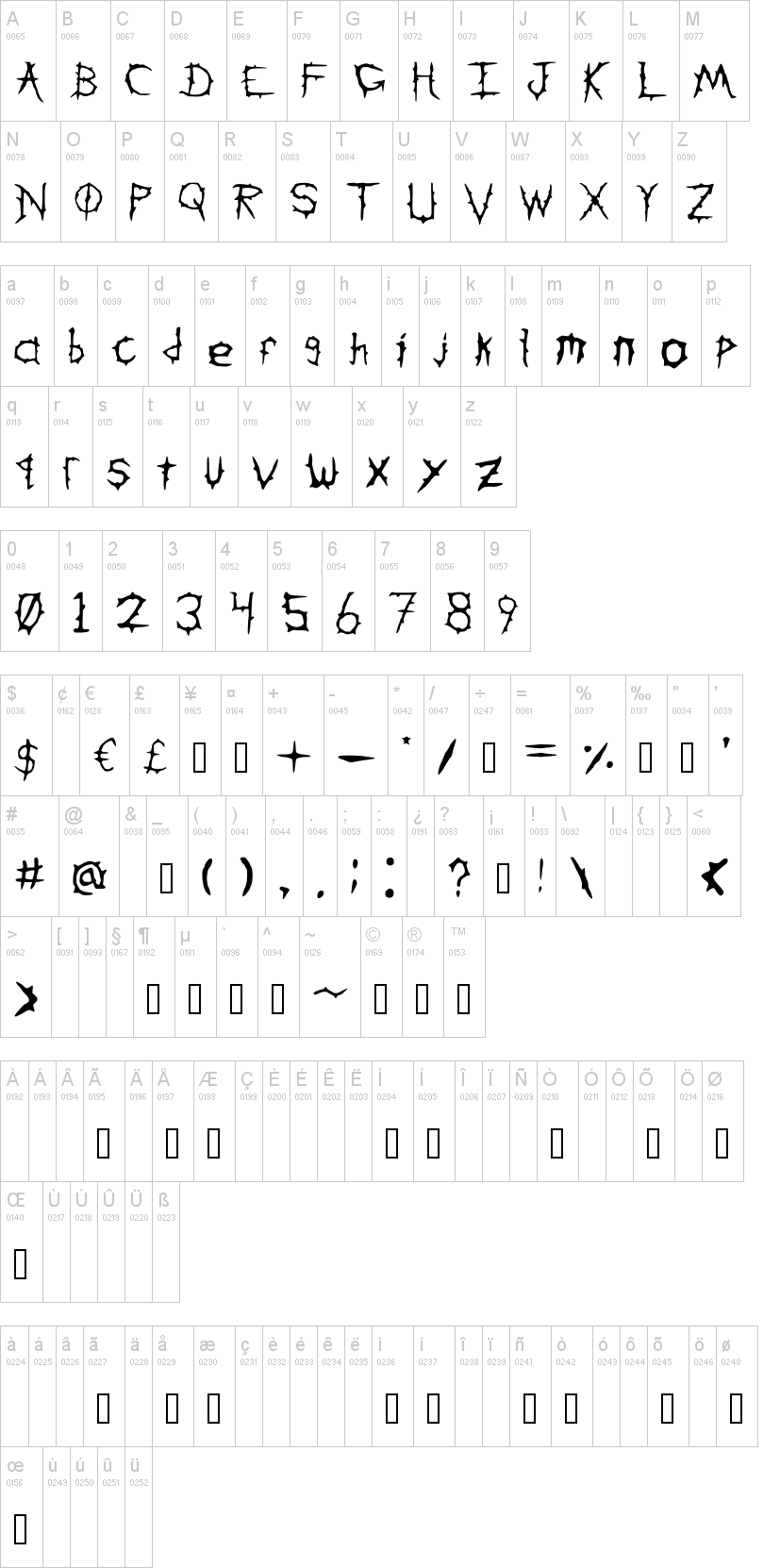
Note of the authorHello, and welcome to my second font, soldiers! Unlike my Battle Mage font, this one has both lower case AND capital letters and was actually written in Photoshop Elements, while BattleMage was handwritten by me. I spent approximately four hours on this font, so don't be mean! .......please? :3 Anyway, I hope you all enjoy the font.
This is version 2 of my Down With The Sickness font (AKA Nineveh font). Wondering what's different? Well on the original version, there was a little bit of a cut off at the top of the capital O letter, sO I decided tO fix that. EnjOy!
P.S. I admit I am a nerd for naming this after a Disturbed song. Lol.